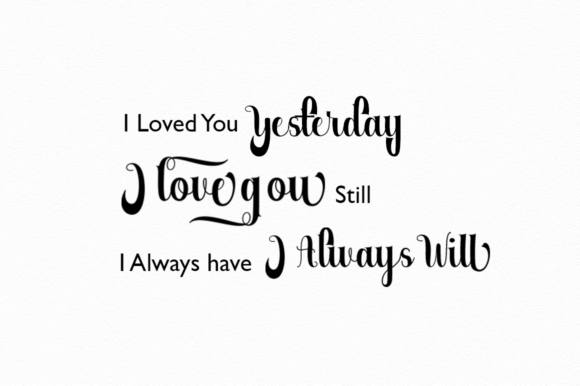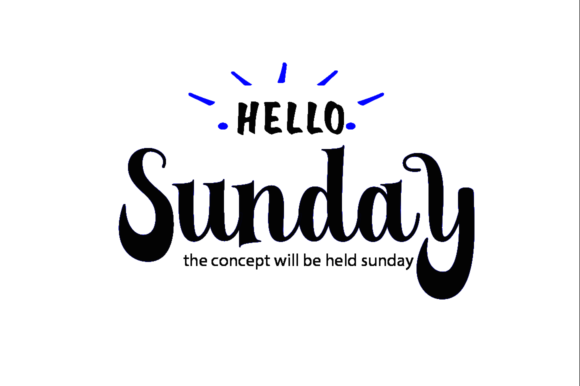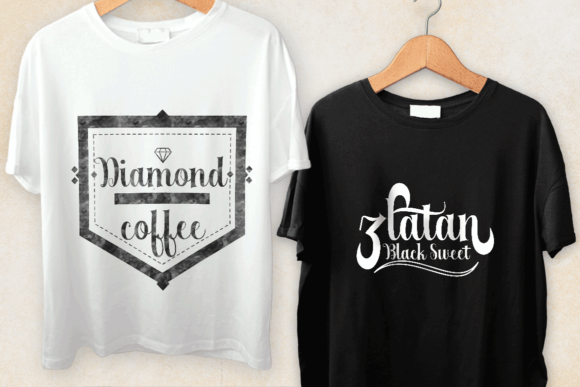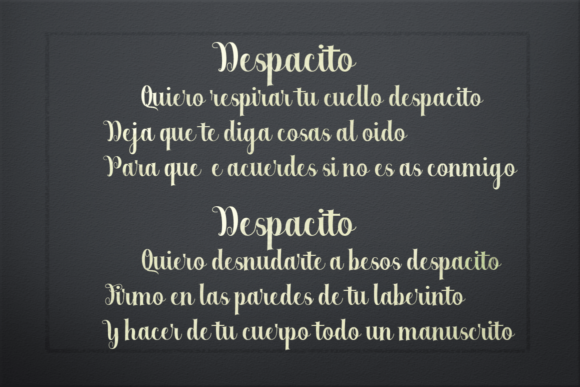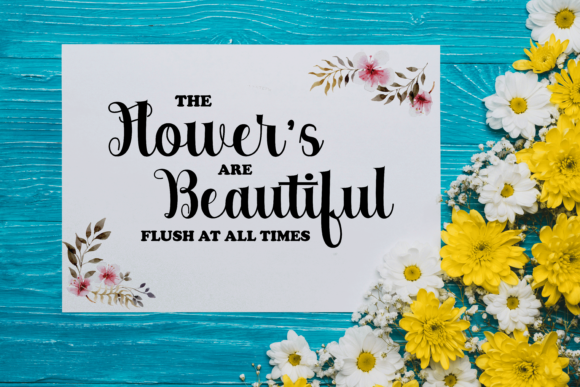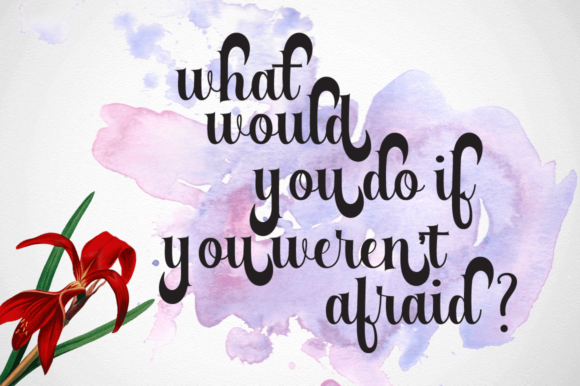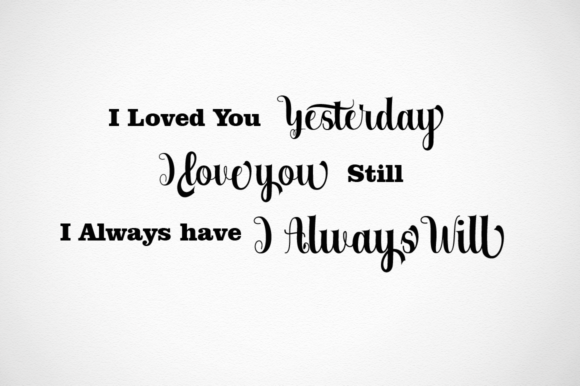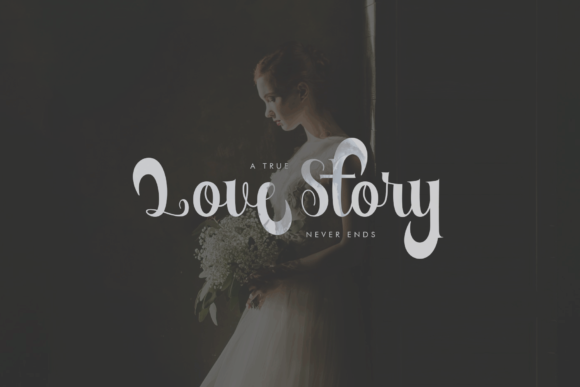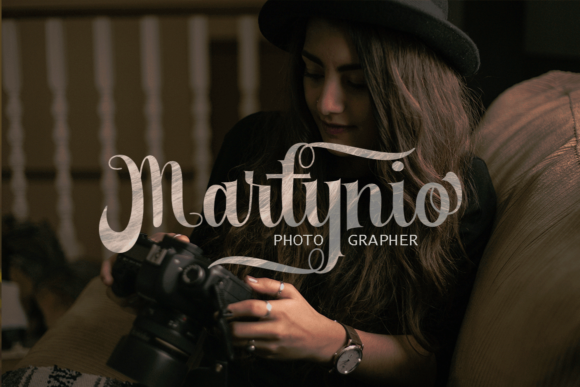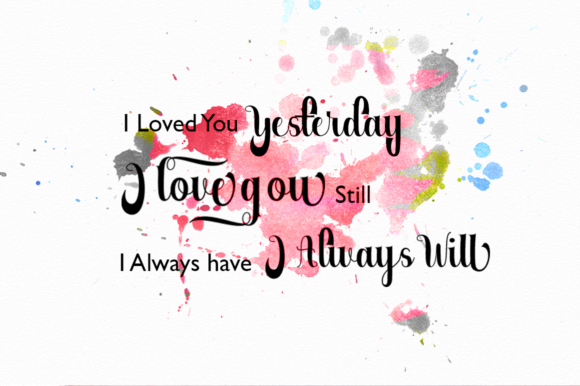
Berkarya Font
About Berkarya Font
Berkarya is a beautiful high-contrast font, ideal for use in a wide range of projects. This font has a poppy, modern feel an can add some elegance to your projects with easiness and style.